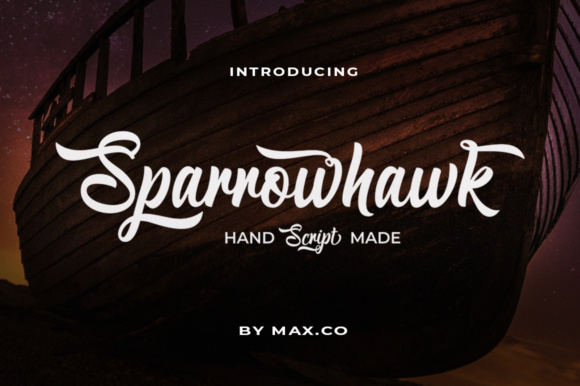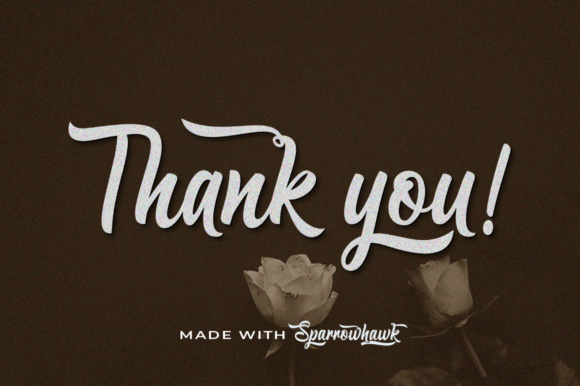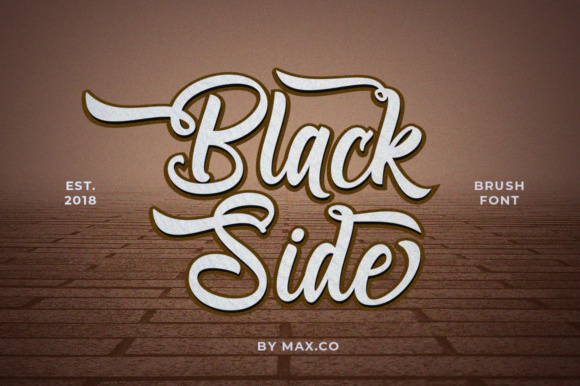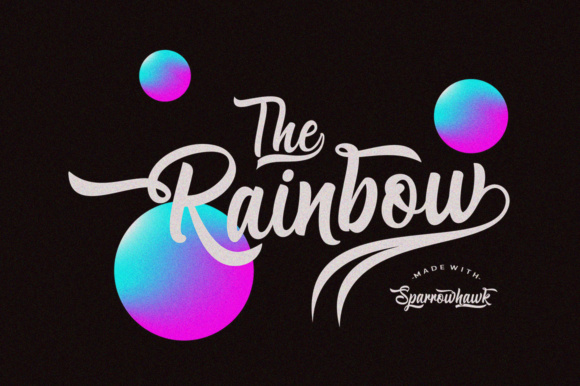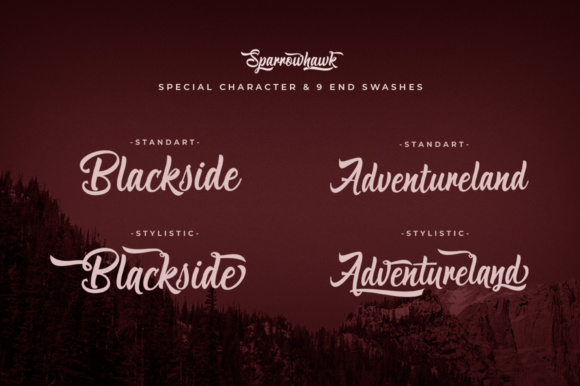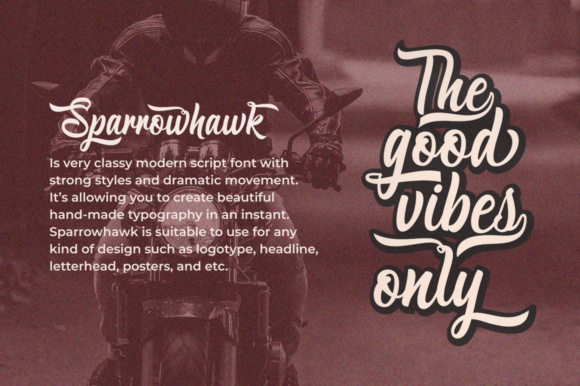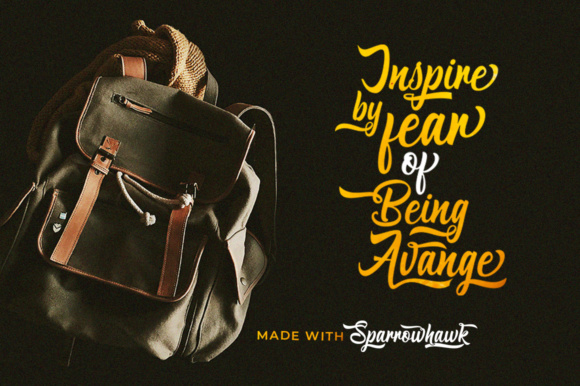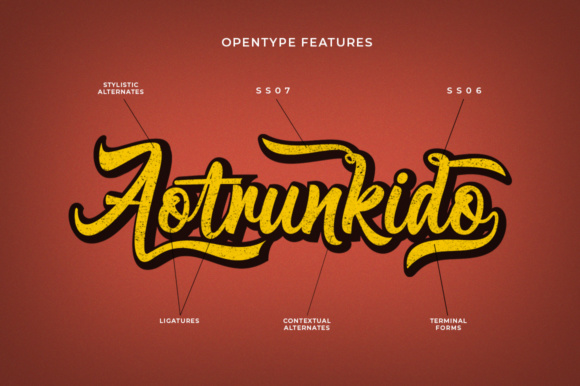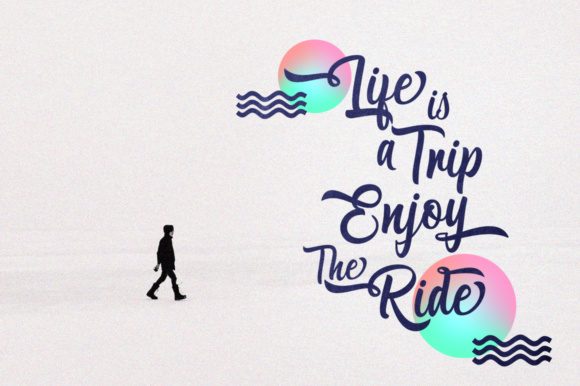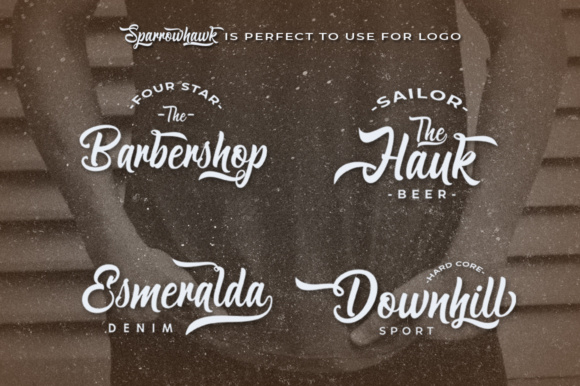
Sparrowhawk Script Font
About Sparrowhawk Script Font
Sparrowhawk Script is a retro looking calligraphy font with a bold and clean exterior.
If features many alternates, making it the perfect font to use over and over again.